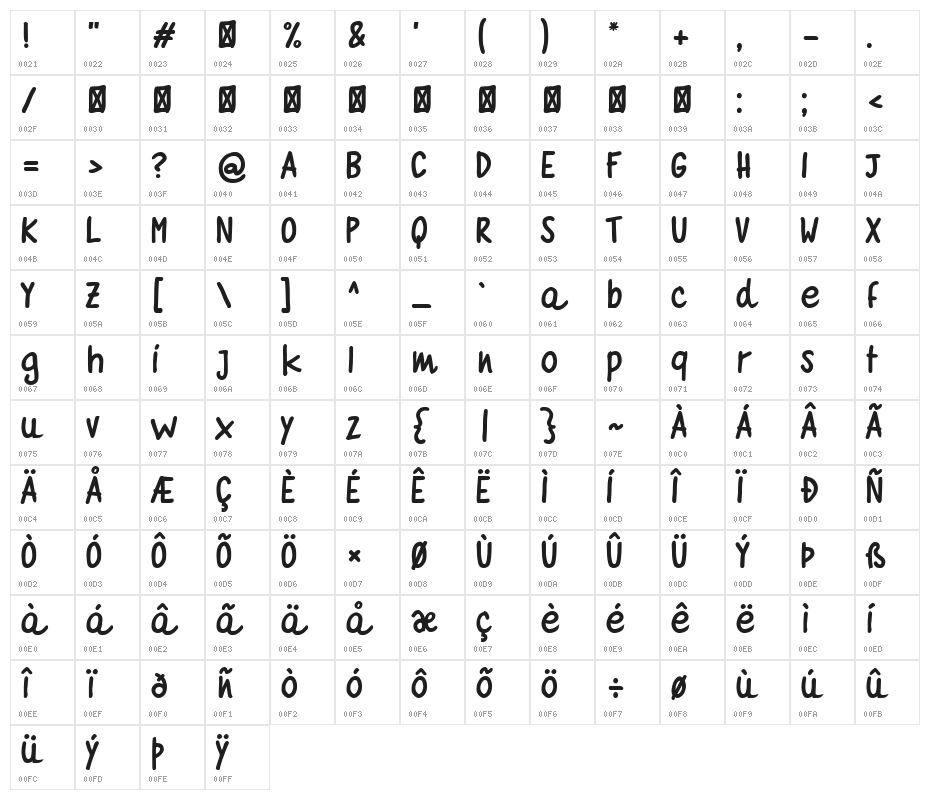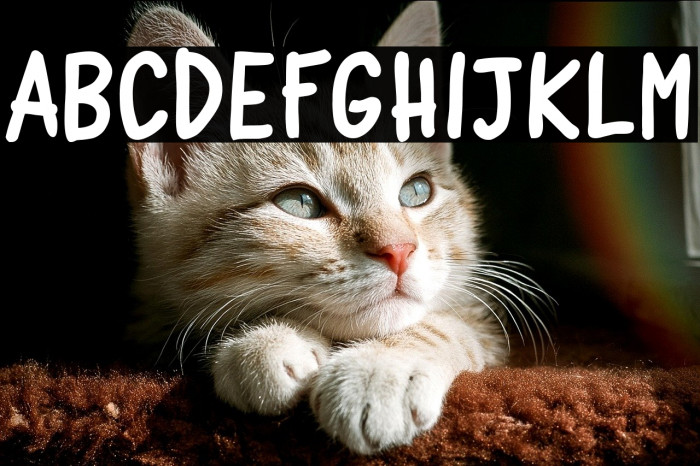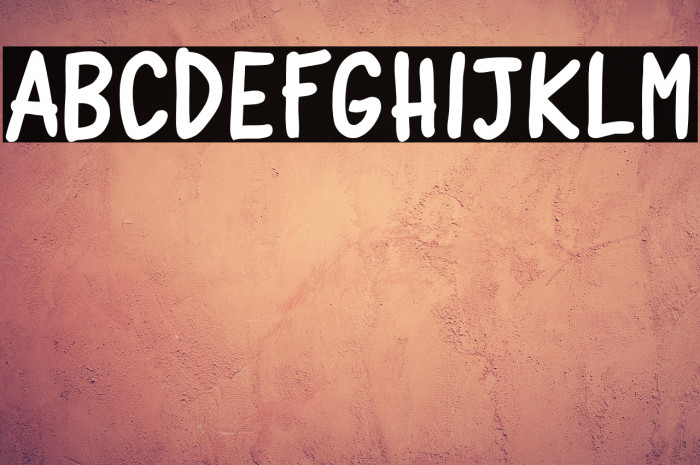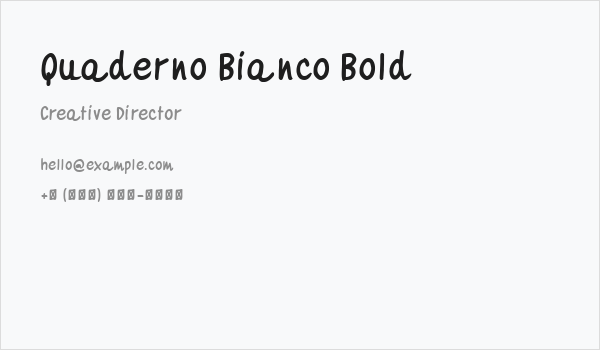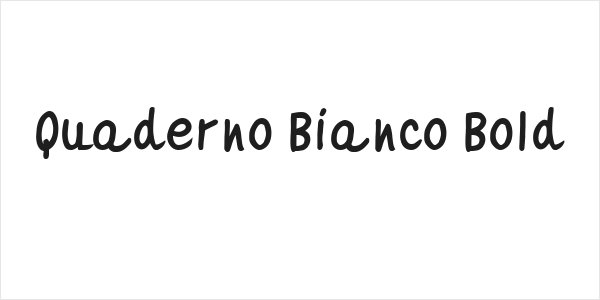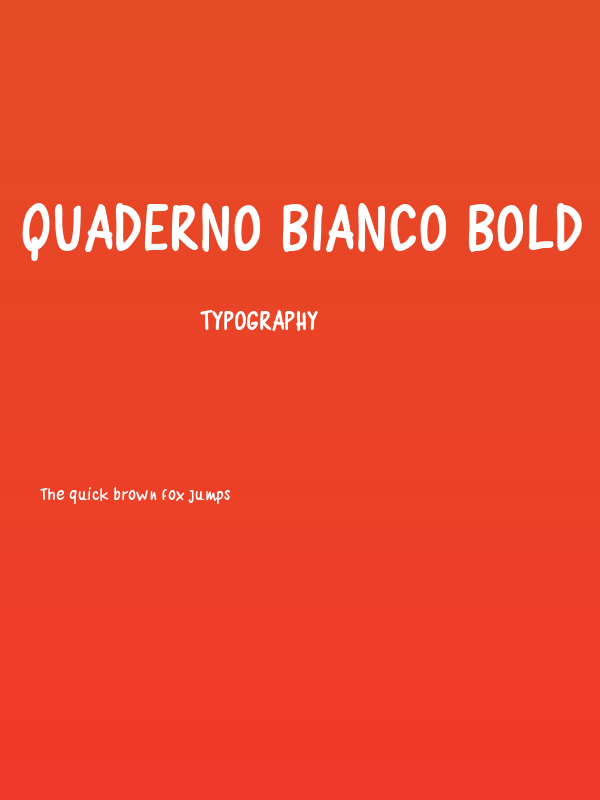
Quaderno Bianco Bold Font
Quaderno Bianco Bold Description
This font features a playful and informal handwritten style, characterized by its bold and slightly irregular strokes. The letters have a casual, friendly appearance, with rounded edges and a consistent thickness throughout. The uppercase and lowercase letters maintain a uniform height, contributing to a cohesive look. The font's design is approachable and lively, making it suitable for projects that require a personal touch. Its boldness ensures readability, while the handwritten style adds a unique charm.
| Proposed Projects | Ideal for children's books, greeting cards, casual branding, and social media graphics. |